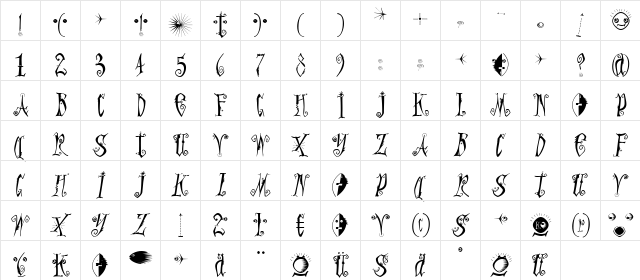
GrafFittyPunk Regular
Design Context for GrafFittyPunk Typeface
GrafFittyPunk is a composed and adaptable typeface that performs quietly and consistently across a wide range of design contexts.